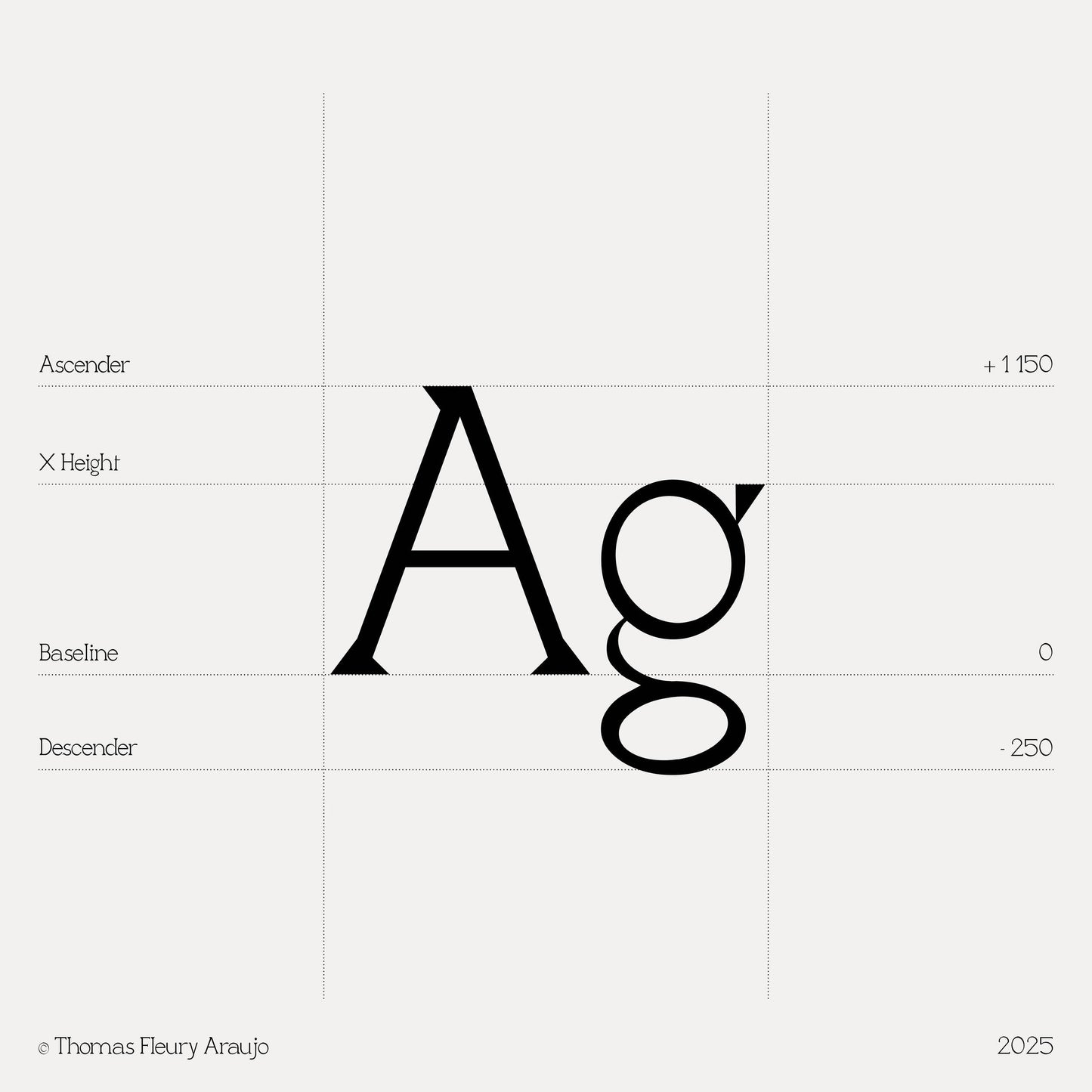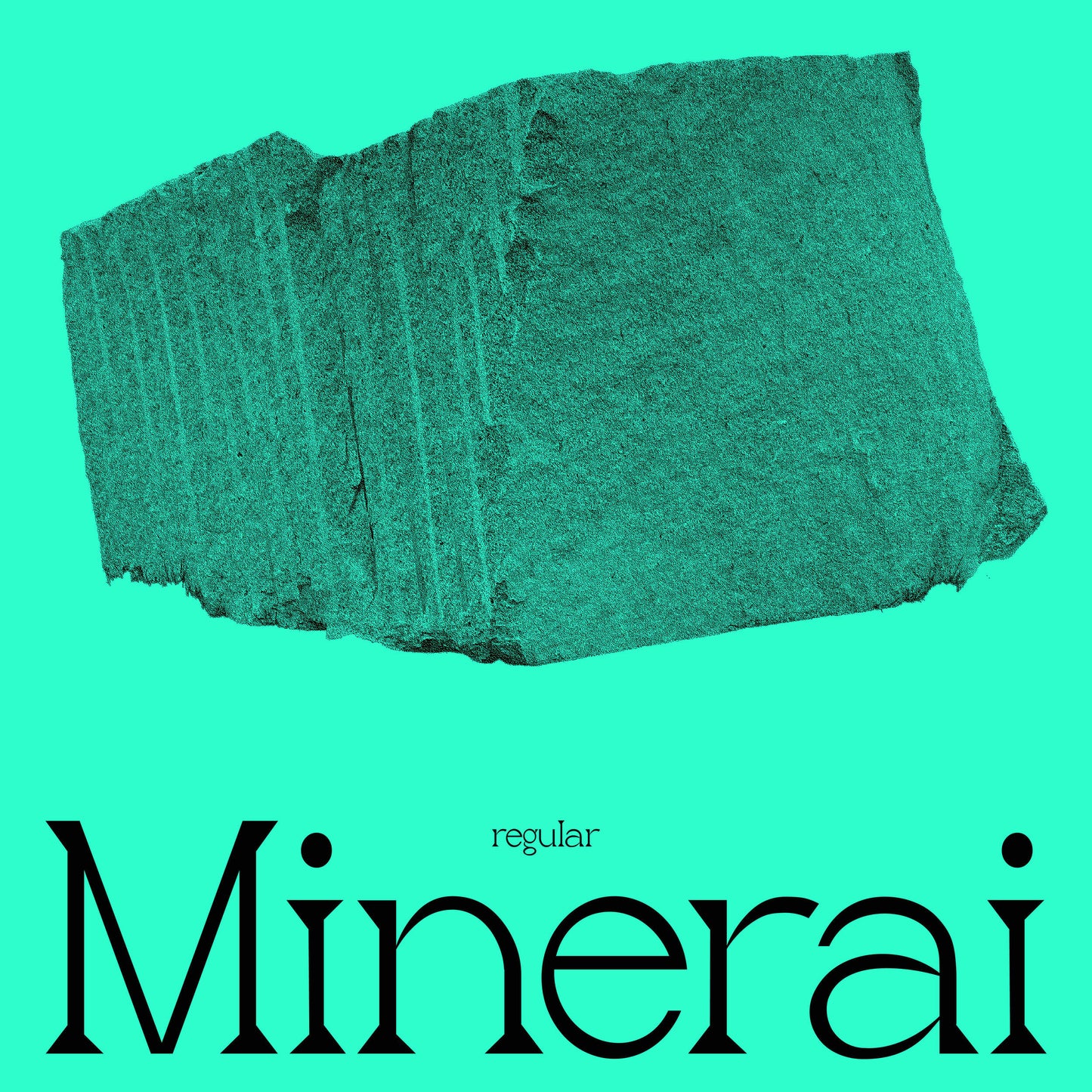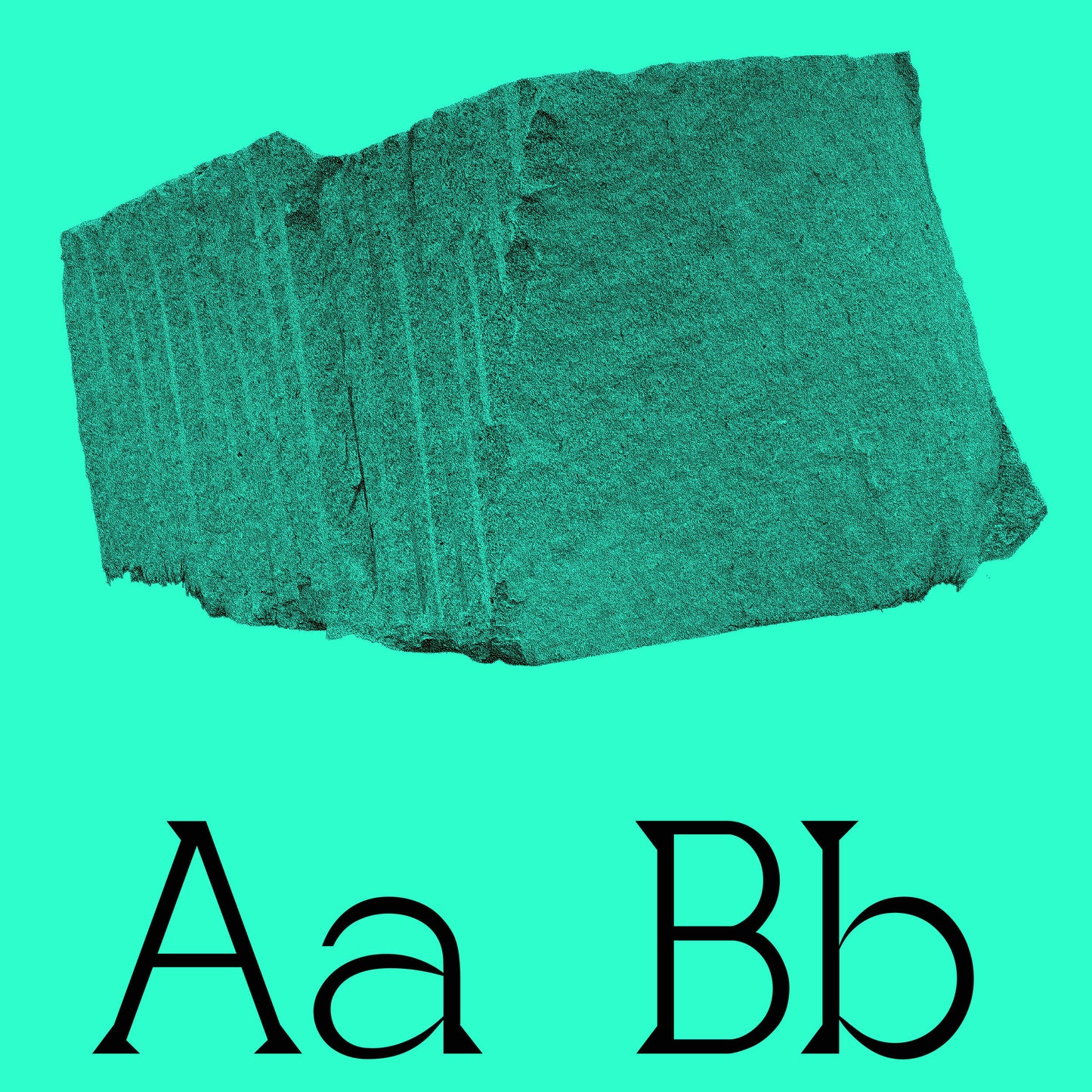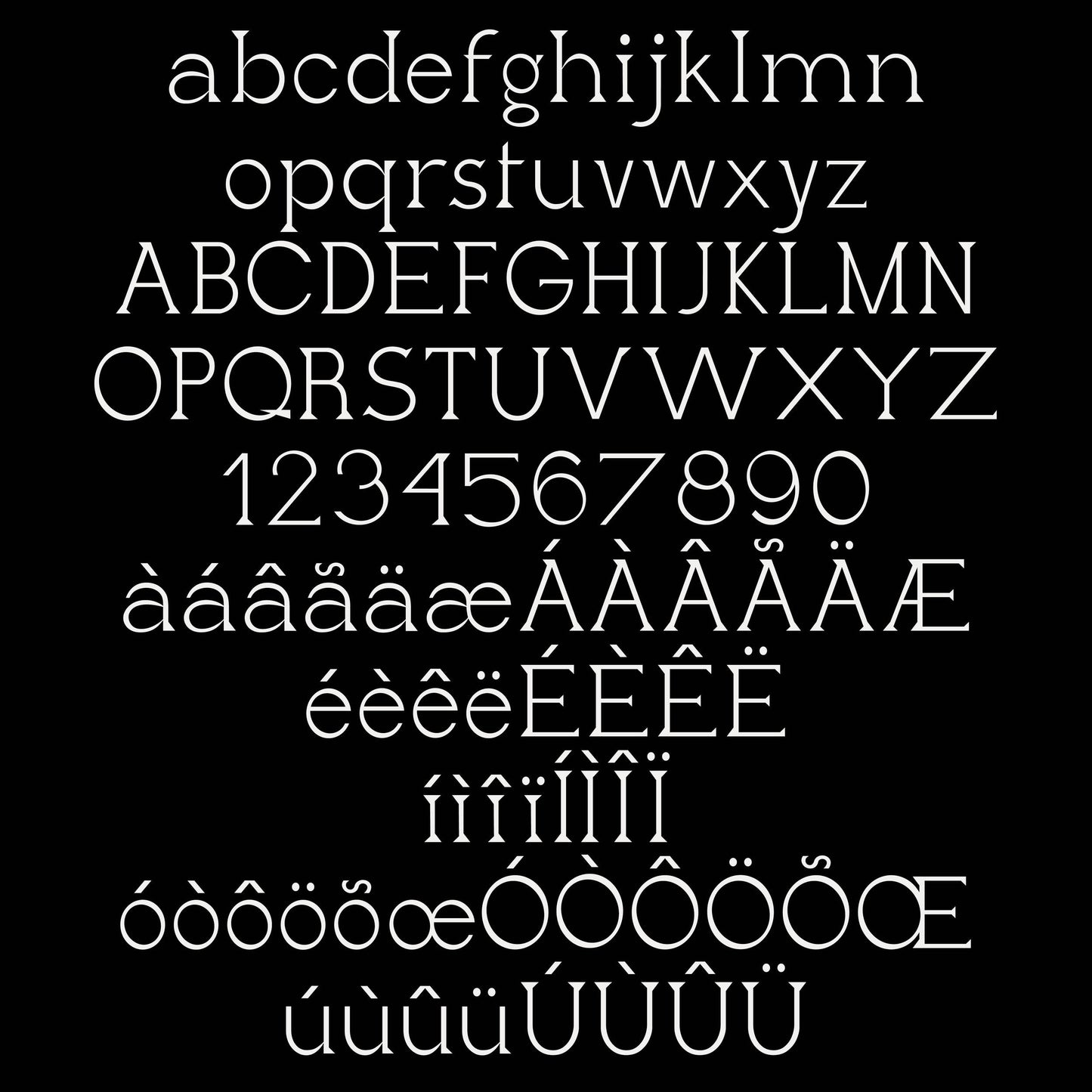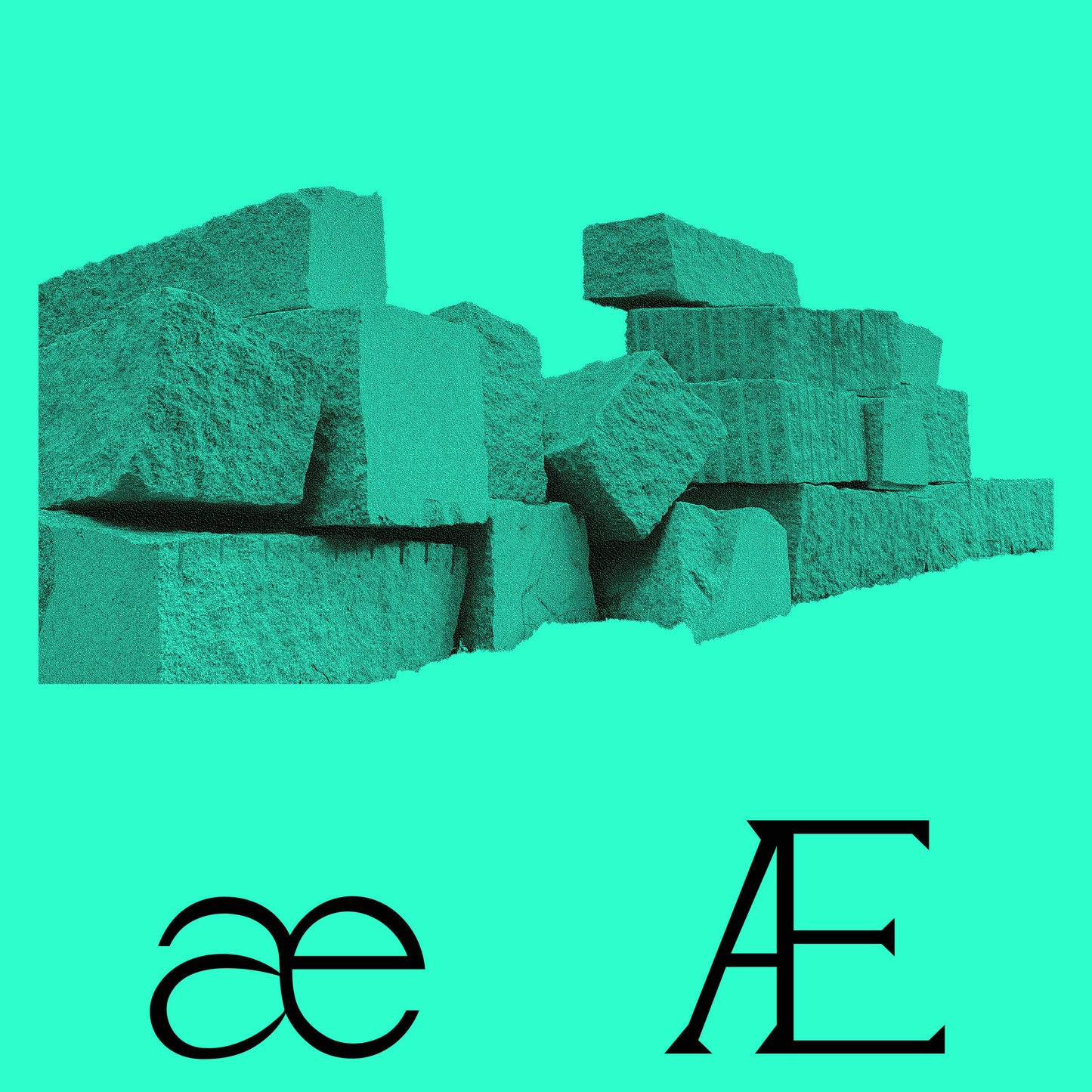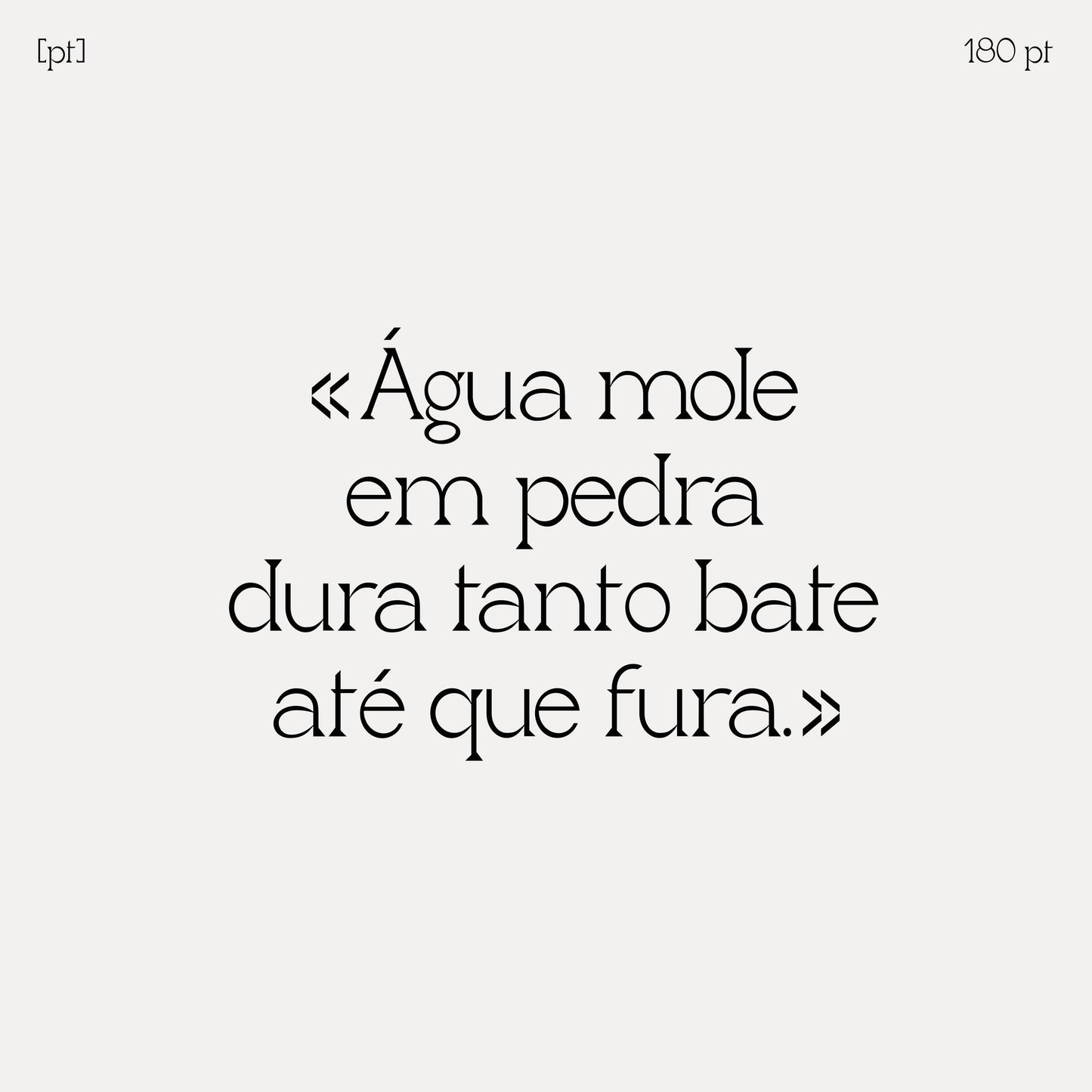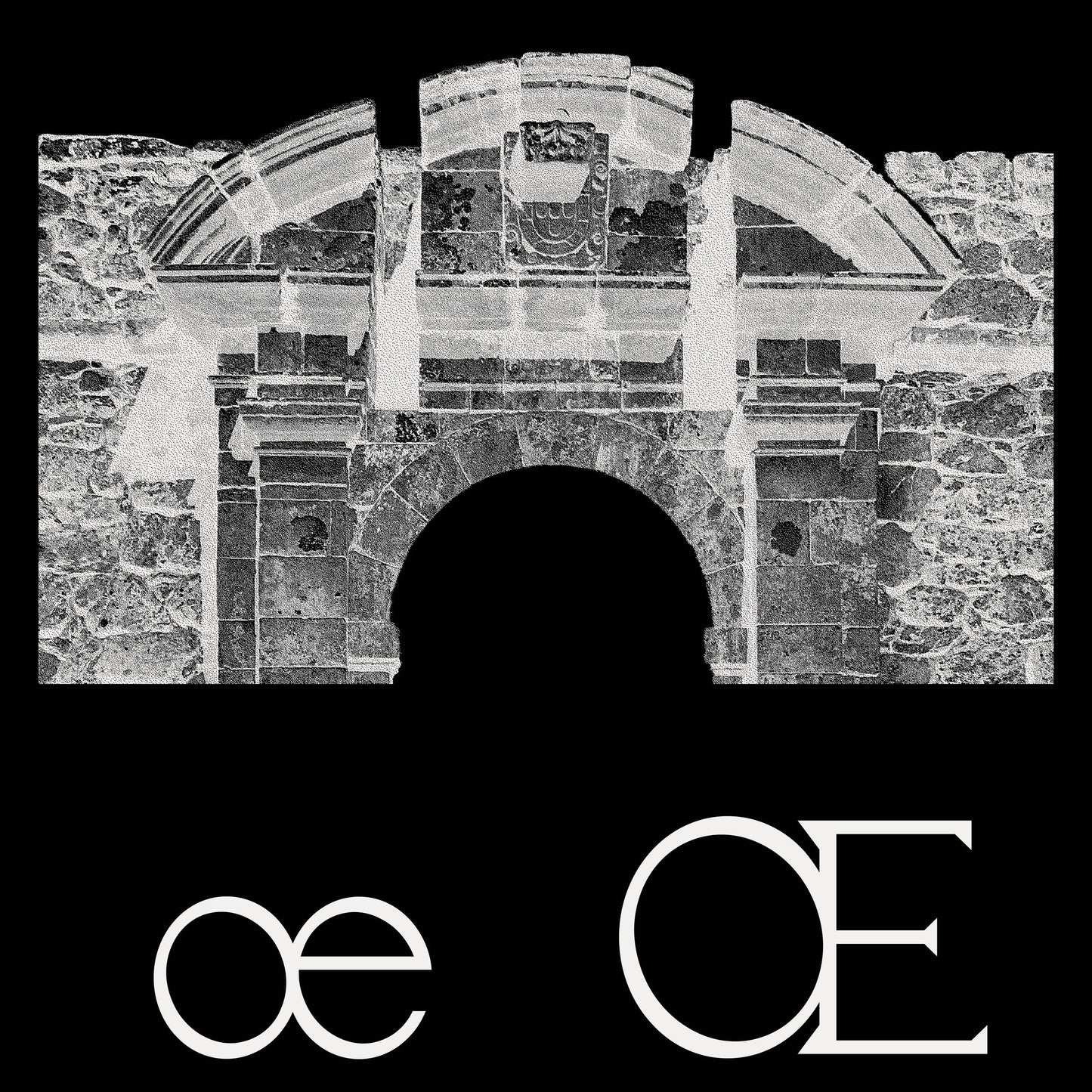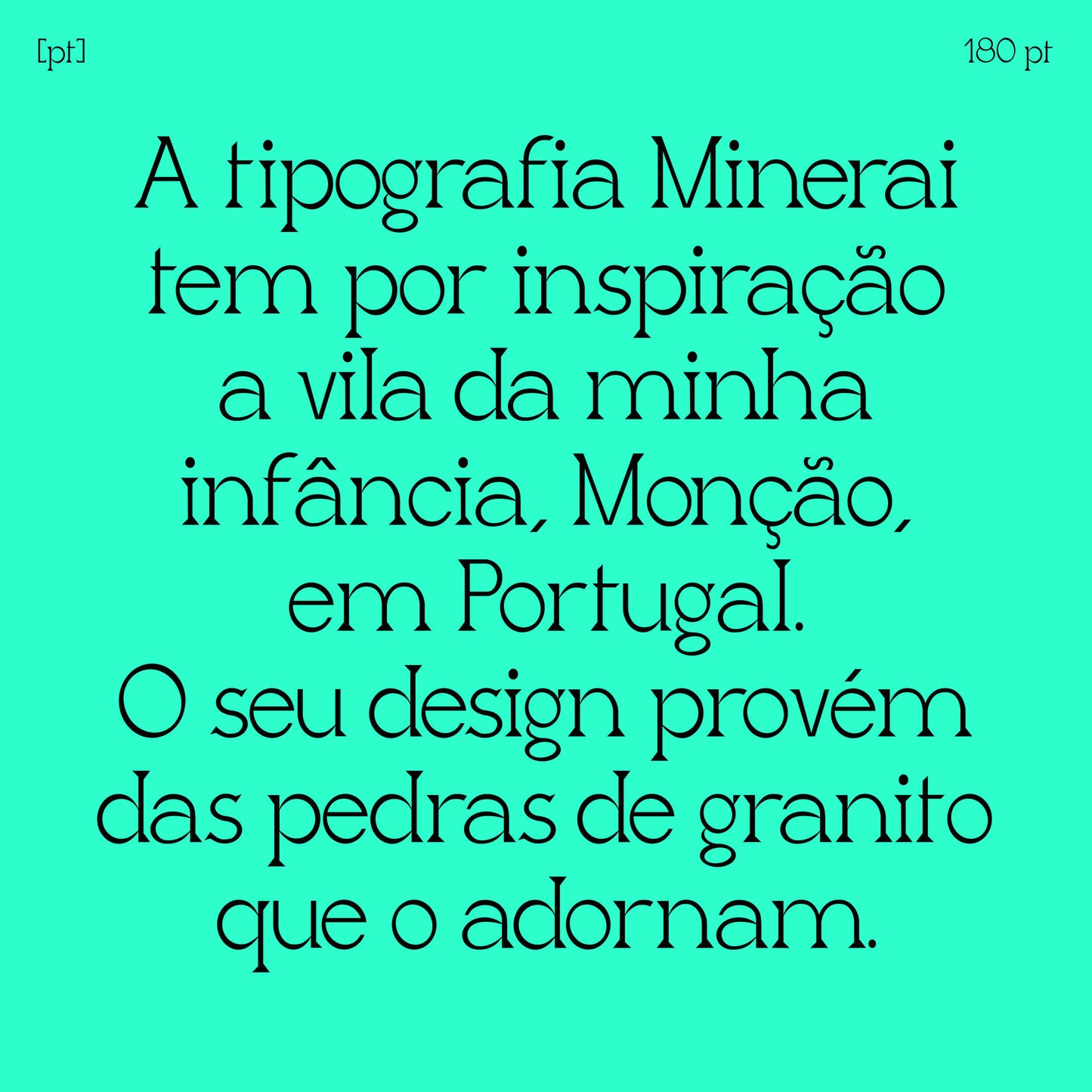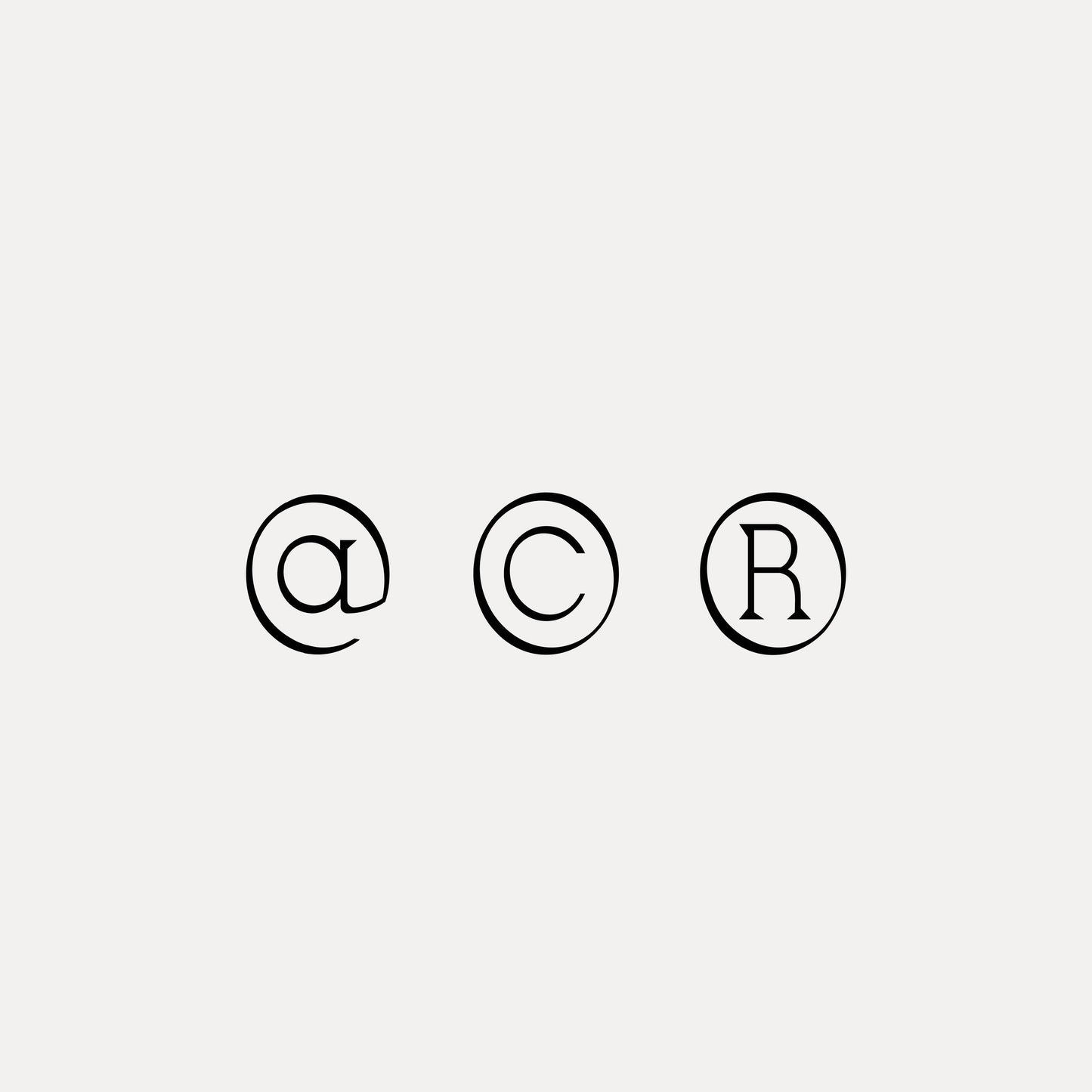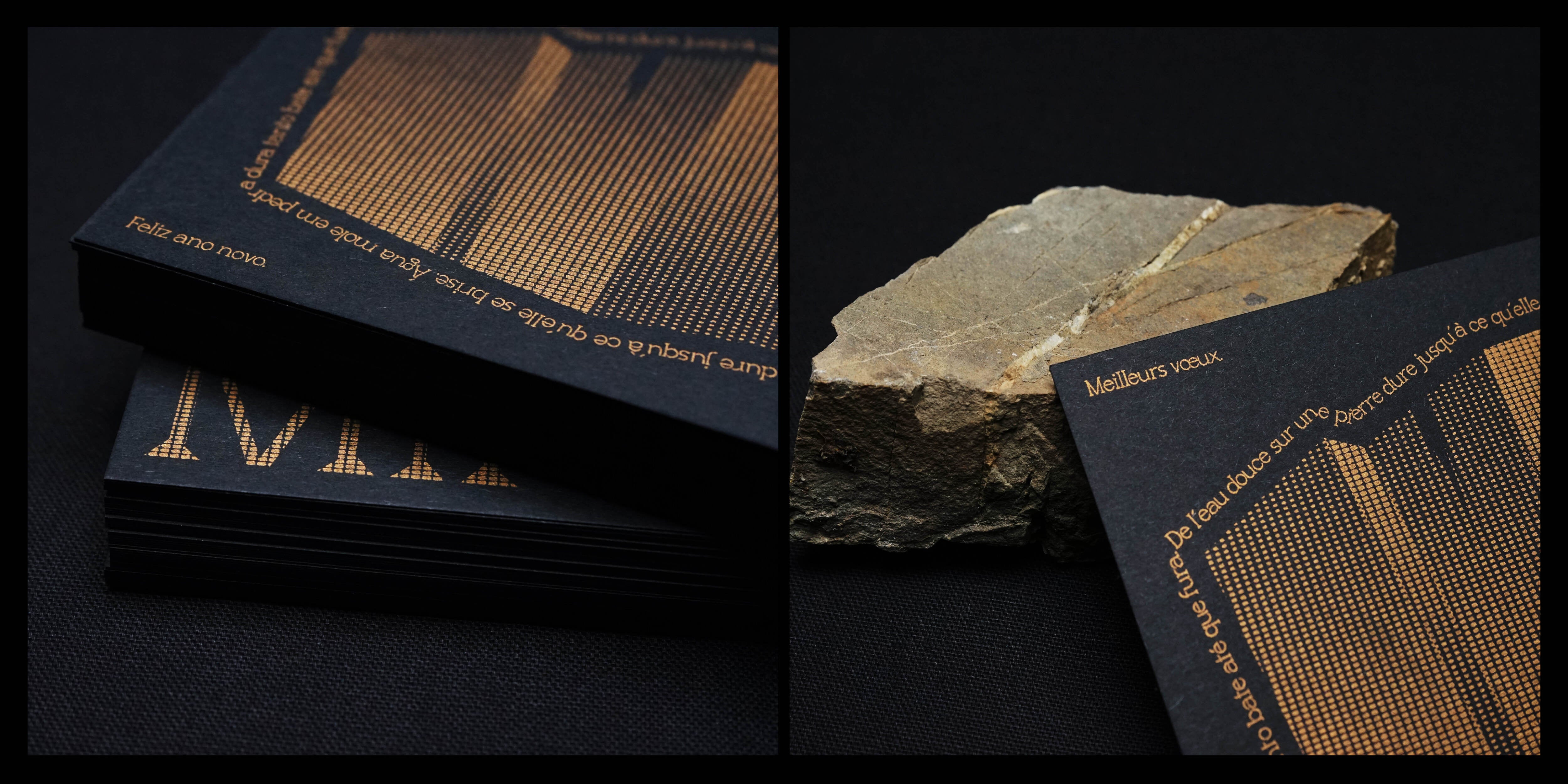
Minerai Serif
Thomas Fleury Araujo
The Minerai typeface is rooted in the practice of Thomas Fleury-Araujo, a French-Portuguese graphic designer and typographer. Born from an intimate connection to material and territory, Minerai finds its origin in the town of Monção, in northern Portugal, the typographer's childhood home, shaped by granite, ramparts, and light.
By observing these mineral structures, both solid and porous, the designer began his typographic exploration. With Minerai Serif, he seeks to convey the density and strength of stone: a writing form built from matter itself, where each shape seems carved from granite.
Minerai Sans, its refined counterpart, extends this exploration by revealing another facet of the same landscape — the voids between the stones, the light that filters through, the breath that unfolds.
Together, the two typefaces form a complementary whole, a dialogue between grounding and openness, structure and lightness.